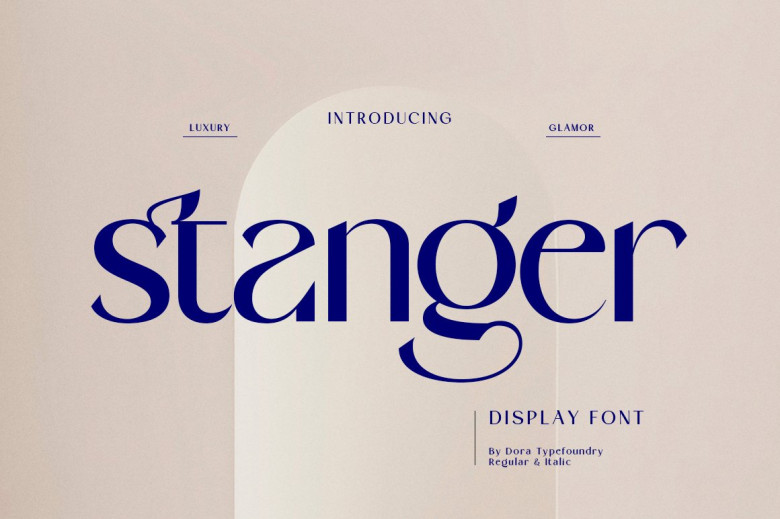
Stanger Font
Stanger – sans serif appearance with simple, uncluttered, and graphical sophistication, providing a smooth contour and beautiful ligatures. Therefore, it is a highly flexible font that may be utilized in a variety of sizes. In this regard, the font is perfect for a variety of projects. Among them are headlines, logos, labeling, branding, journaling, homeware design, packaging, expressive cerations, posters, labels, etc.
This style may also be made more expressive and amusing by utilizing the various alternative and ligatures designed into this font, which work together to make it more unique and adaptable. By simply changing the separate and combined alternatives and ligatures, you have a large number of options for use, letting your project be bold & lovely.
Stanger Sans Serif Font